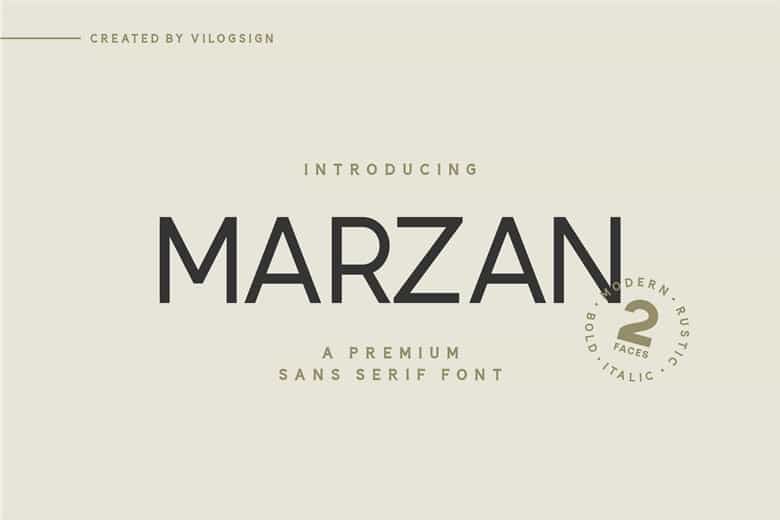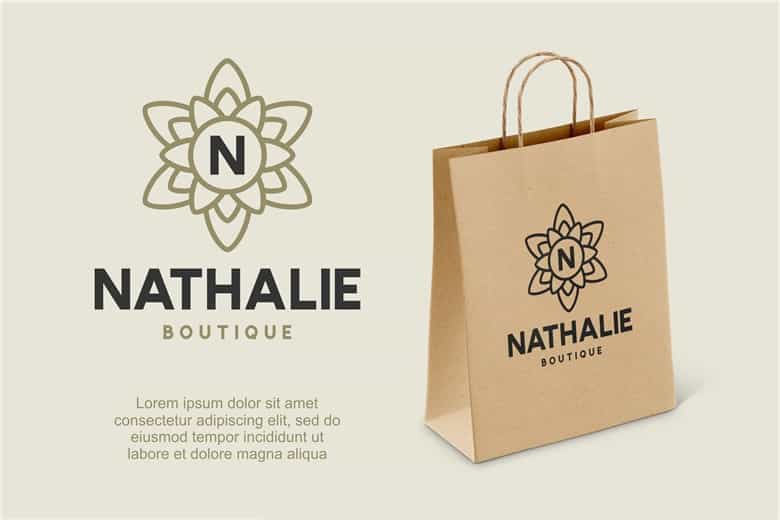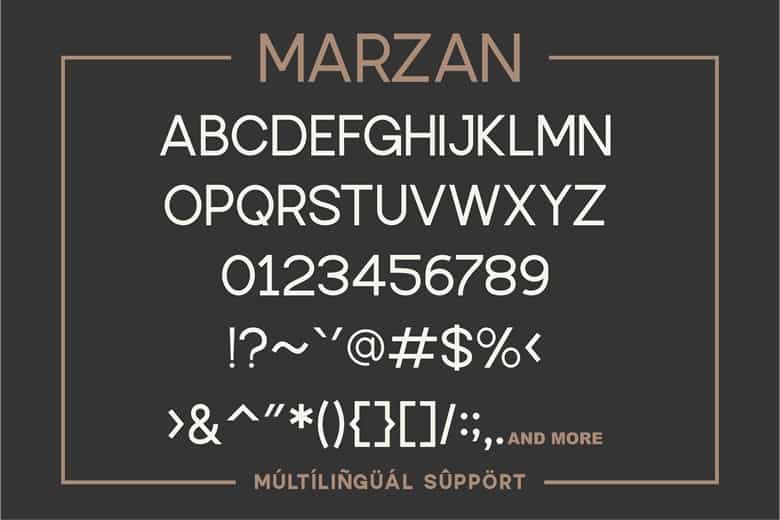
Marzan is a premium font that is sans serif and contains textures for that vintage look. It is the perfect font to apply especially to branding and other kinds of formal use such as labels, logos, magazines, books, packaging, clothes, beauty products, papers, novels, labels, or any sort of advertising use.